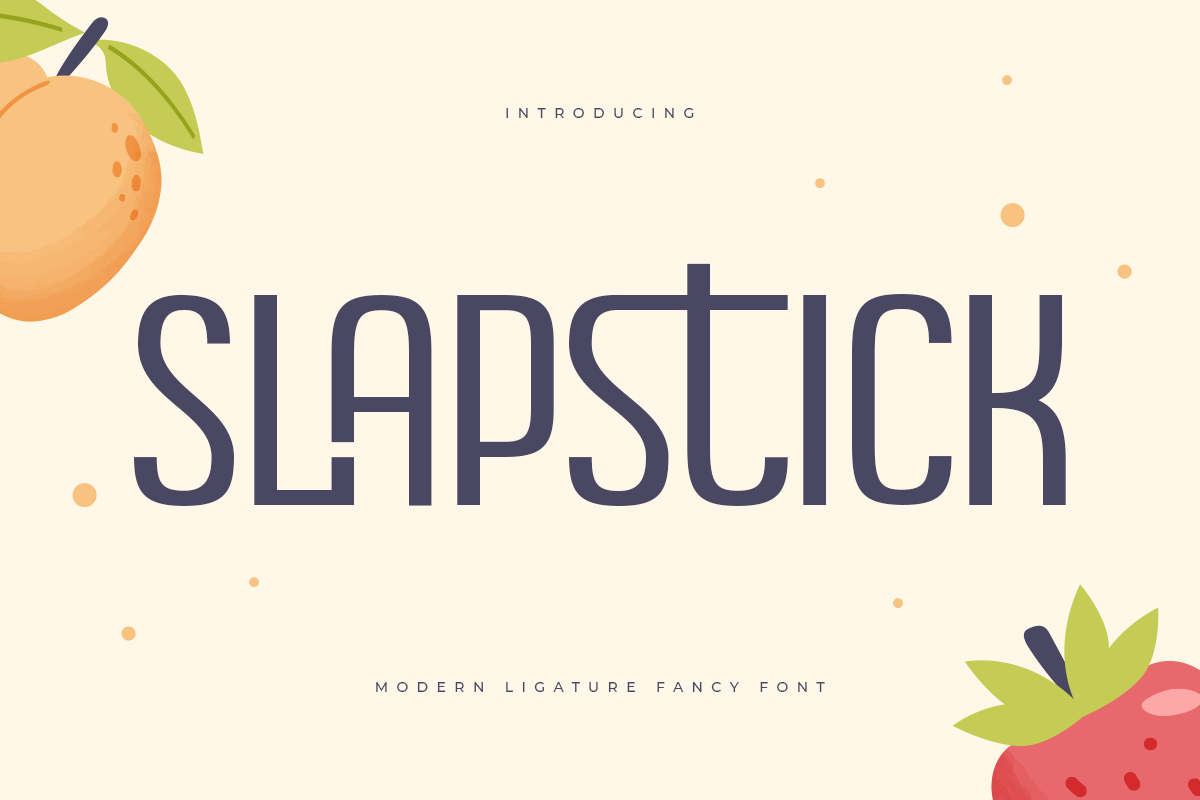
Slapstick - Ligature Fancy Font
Add instant charm to your designs with Slapstick, a modern ligature fancy font perfect for playful and children-focused branding. This delightful typeface features unique ligature characters in distinctive shapes that bring personality and class to any creative project. Whether you're designing for kids' brands, fun campaigns, or projects that need a touch of whimsy, Slapstick delivers the perfect balance of modern sophistication and playful character. The font includes unlimited creative possib...